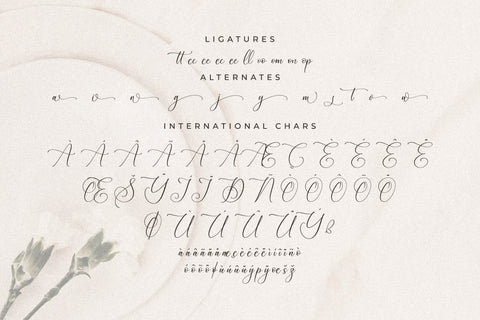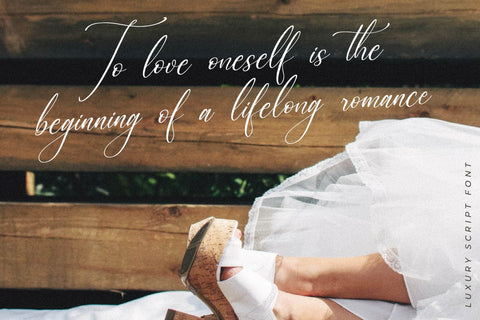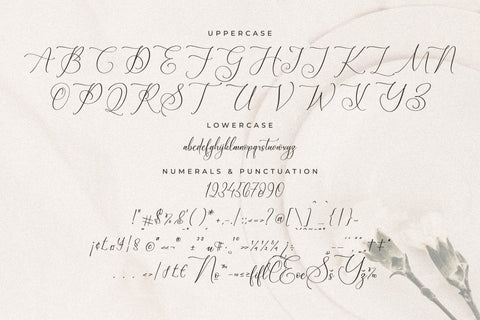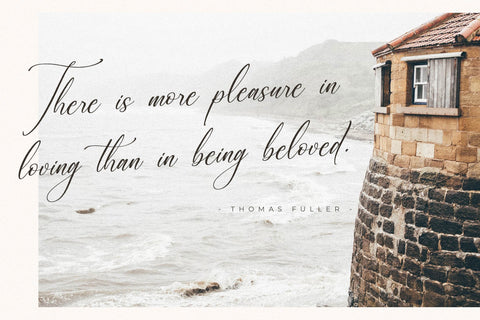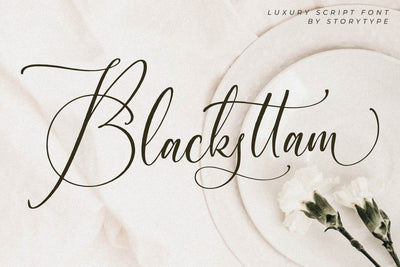
Blacksttam Luxury Script Font
Proudly present Blacksttam Luxury Script Font , created by Storytype,
A luxury script that has own unique style & modern look.